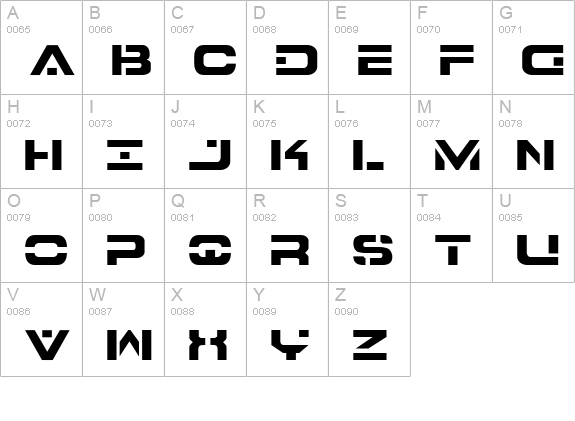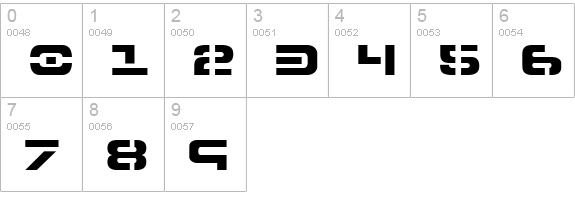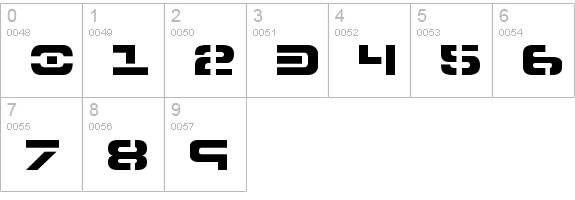
The 7th Service font is a versatile and modern typeface that exudes elegance and sophistication. With its clean lines and sleek design, this font is perfect for a wide range of design projects, from branding to editorial design. The 7th Service font is available in a variety of weights and styles, making it easy to customize and perfect for creating eye-catching designs. What sets the 7th Service font apart is that it is not only stylish and functional but also completely free to download. Yes, you read that right - this high-quality font is freely available to download at FontsMarket.com. Whether you're a professional designer or a hobbyist looking to add a touch of flair to your projects, the 7th Service font is sure to impress. Download it today and elevate your designs with this stunning and versatile typeface.